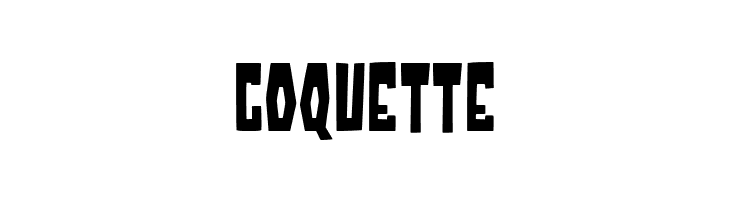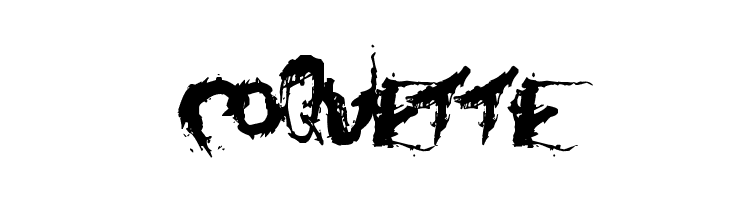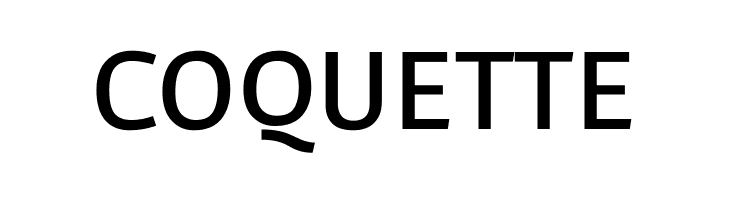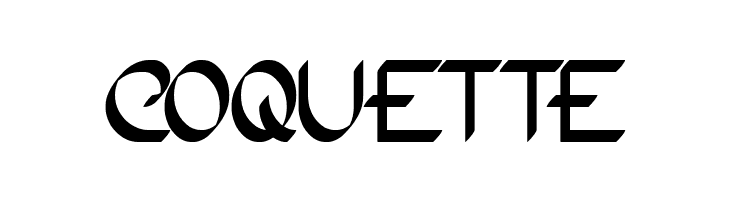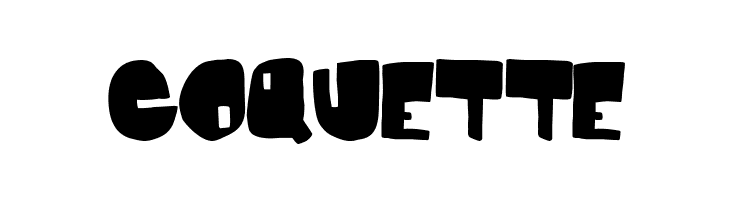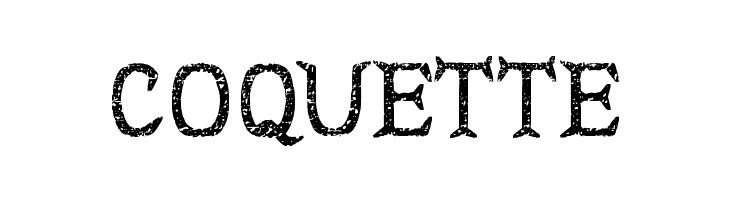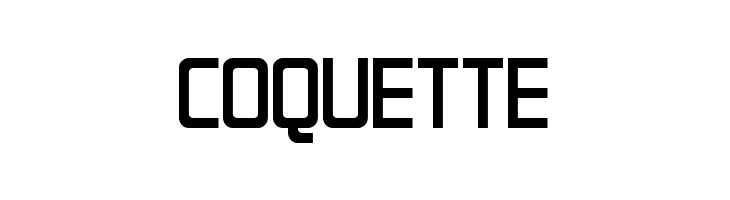
A bold, dynamic font with a playful, distorted style.
A bold, playful font with chunky, hand-drawn characters.
) A clean, modern sans-serif font with consistent stroke widths and geometric letterforms.
A bold, angular font with a modern and edgy style.
A bold, futuristic font with sharp angles and geometric shapes.
A dynamic, brush-style font with expressive, fluid strokes.
A modern, geometric font with bold, clean lines and a slightly condensed style.
A bold, distressed font with a rugged, pirate-inspired aesthetic.